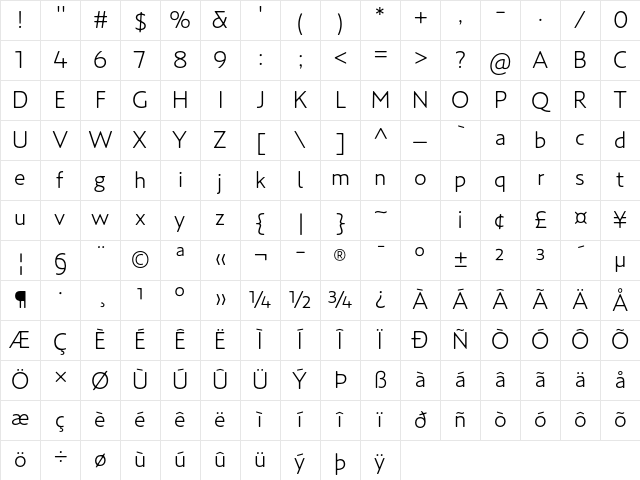
MO Citrine Pro Light Regular
MO Citrine Pro Light Family
Design Context for MO Citrine Pro Light
MO Citrine Pro Light is a composed and adaptable typeface that performs quietly and consistently across a wide range of design contexts. Its slender proportions lend an understated elegance to any composition.